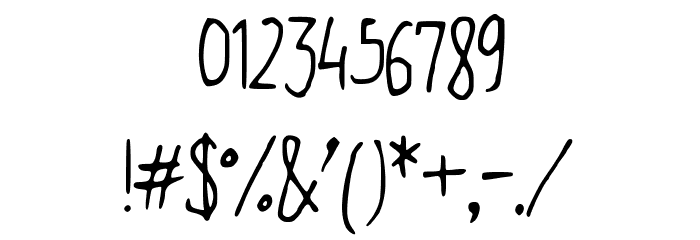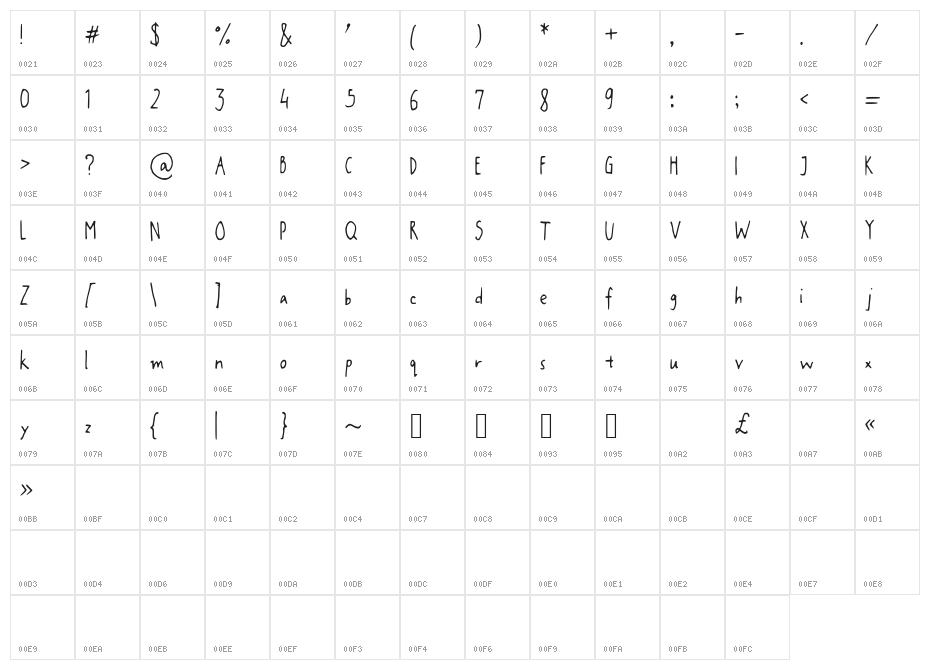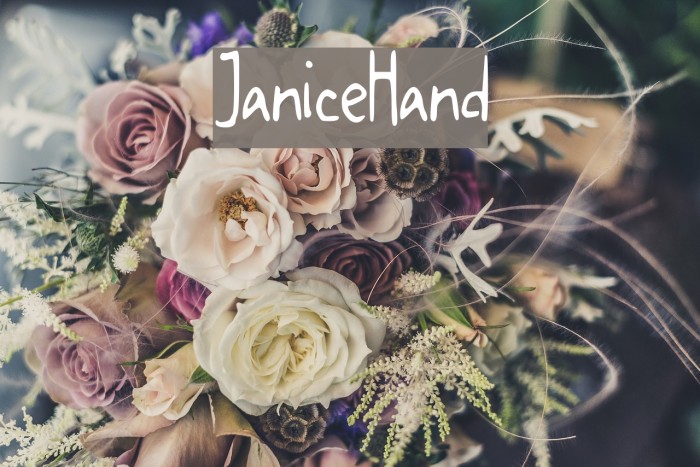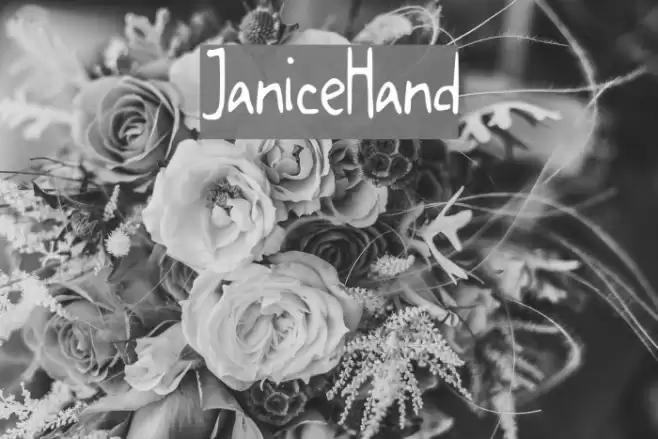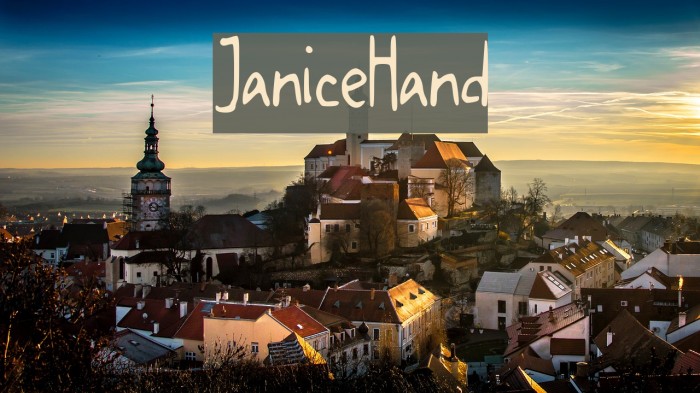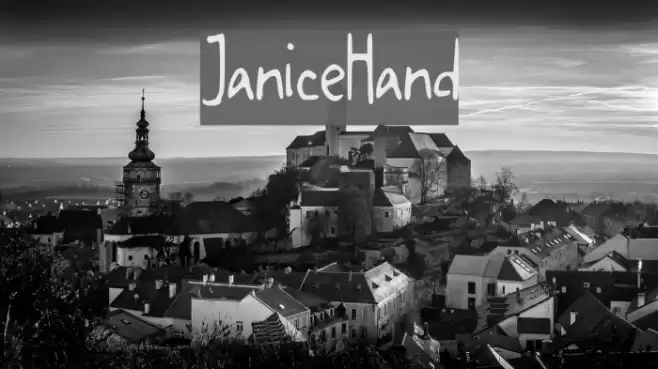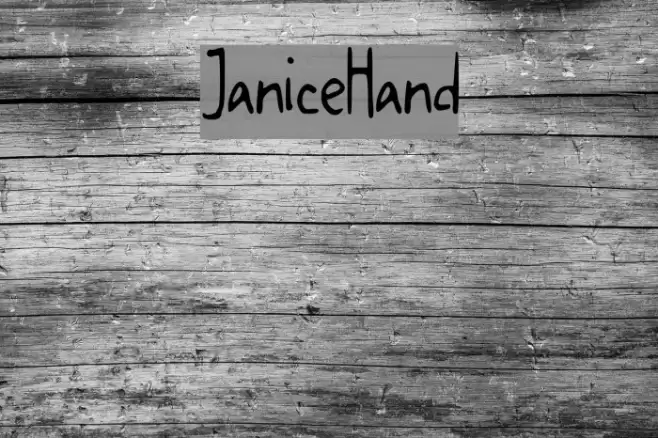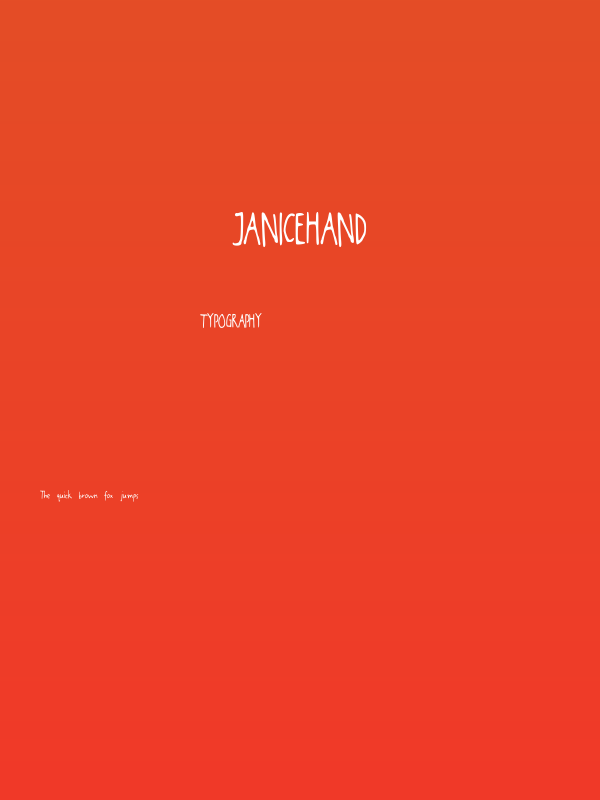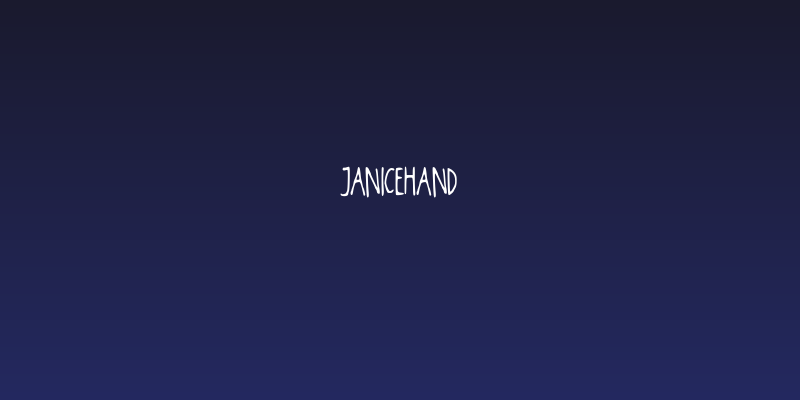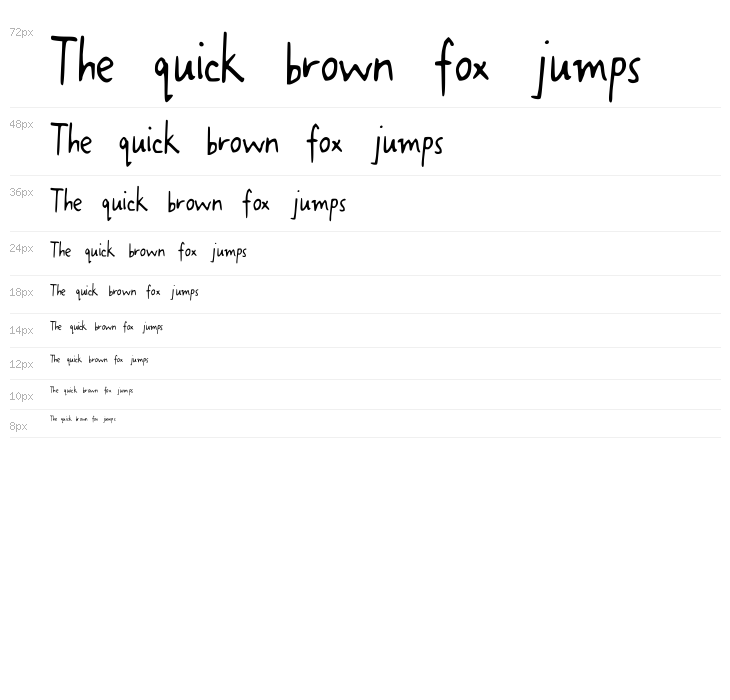
JaniceHand Font
JaniceHand Description
This font exudes a playful and casual handwritten style, characterized by its irregular strokes and organic flow. The letters are slightly tilted, giving a dynamic and lively appearance. The uppercase letters are bold and prominent, while the lowercase letters maintain a consistent rhythm with a more relaxed form. Numbers and special characters follow the same whimsical style, making them easily recognizable and harmonious with the alphabet. The overall look is friendly and approachable, suitable for projects that require a personal touch.
| Proposed Projects | Ideal for greeting cards, children's books, personal blogs, and informal branding projects. |